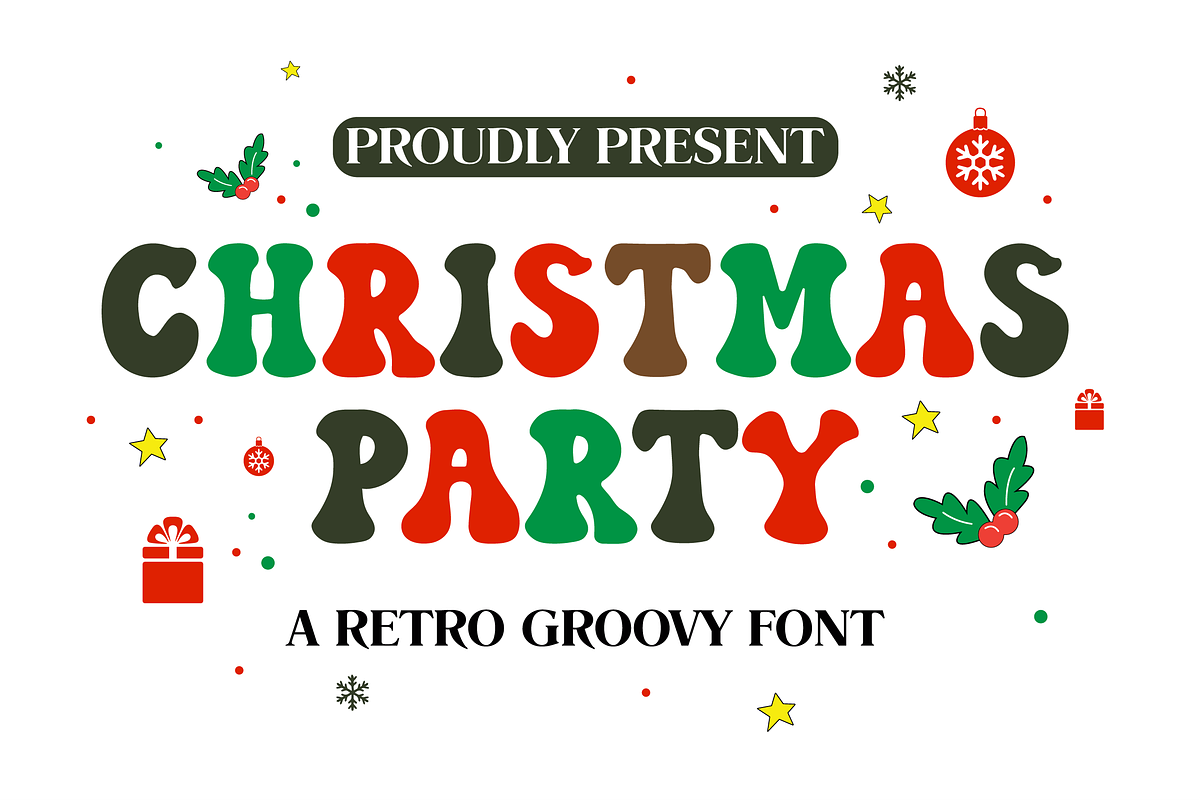
Christmas Party - Retro Font Free Download is the perfect typeface to bring nostalgic holiday vibes to your designs. Whether you're working on a festive greeting card, a vintage-themed poster, or eye-catching social media content, this retro font delivers charm and character in every letter.
Inspired by classic holiday signage and retro party invites, Christmas Party - Retro Font Free Download blends playful curves with bold strokes, making it ideal for creative projects that need a touch of whimsy and cheer. Designers looking to capture the magic of the season will find this font to be a delightful addition to their toolkit.